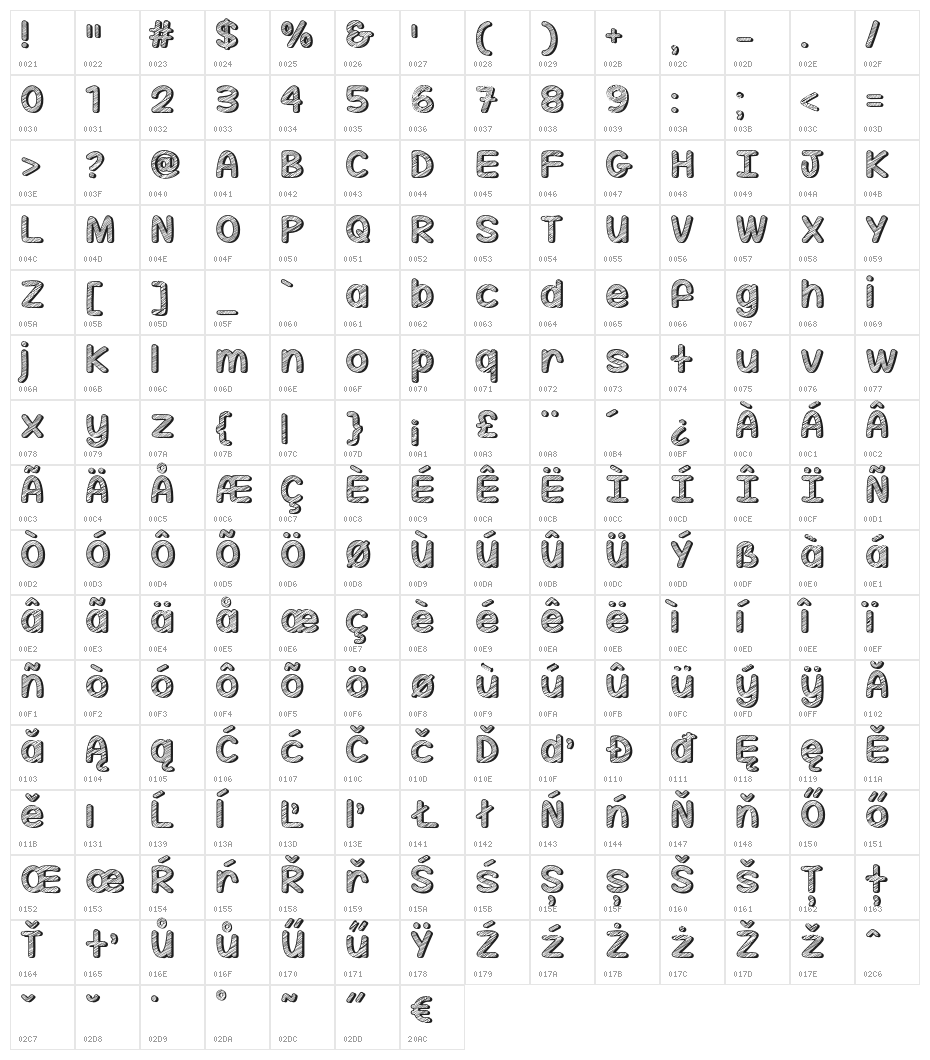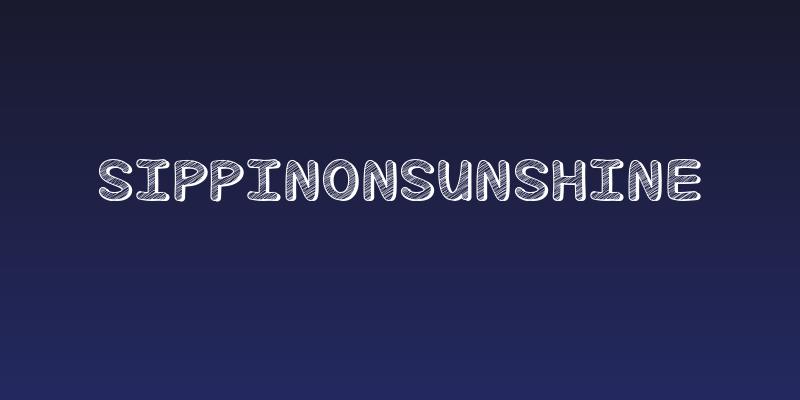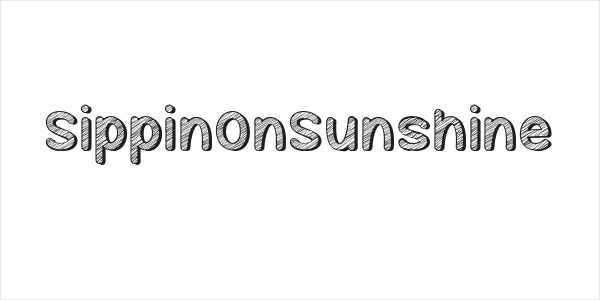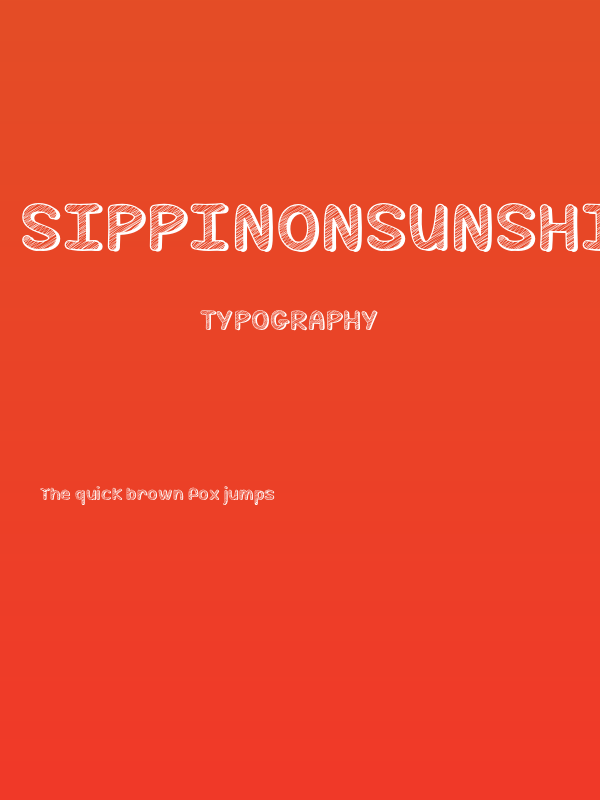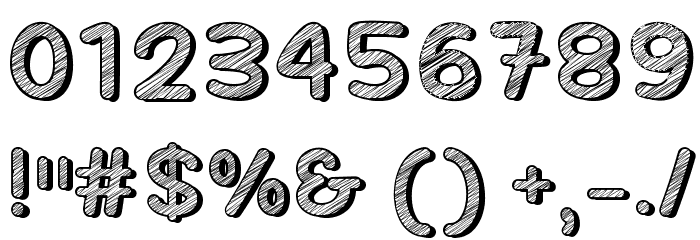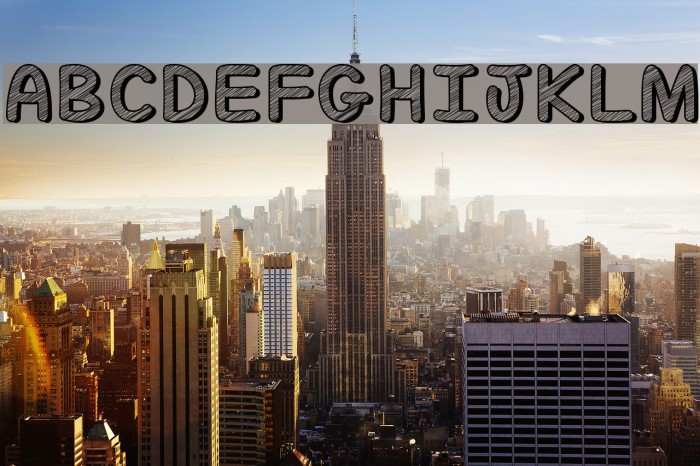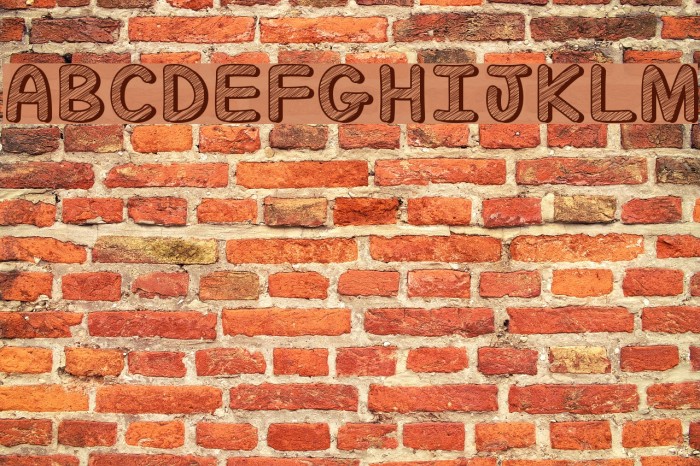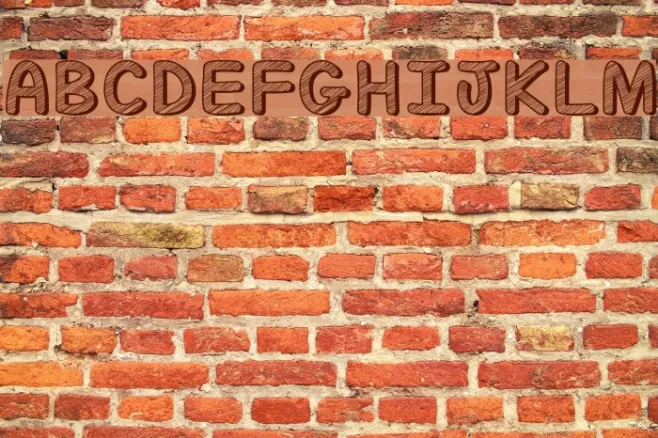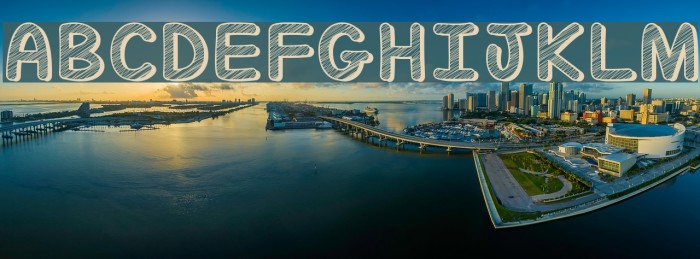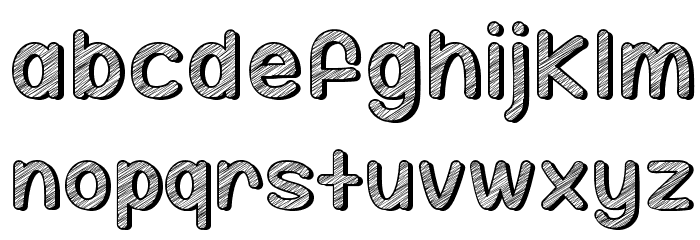
SippinOnSunshine Font
SippinOnSunshine Description
This playful and energetic font features a hand-drawn, sketch-like appearance with a bold, rounded structure. Each character is filled with diagonal hatching, giving it a textured, artistic feel. The letters are evenly spaced, maintaining a consistent flow across both uppercase and lowercase alphabets. The numbers and special characters share the same lively style, making the font versatile for various creative applications. Its unique design is perfect for projects that require a fun and informal touch.